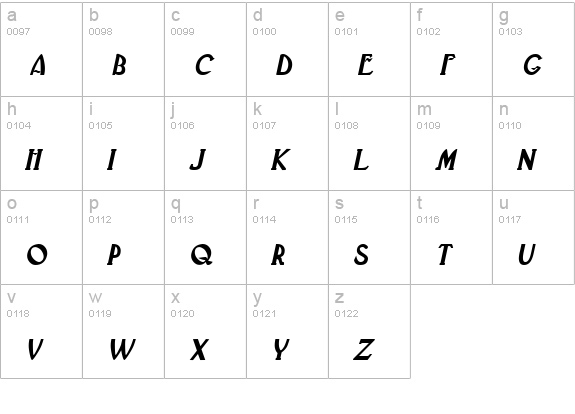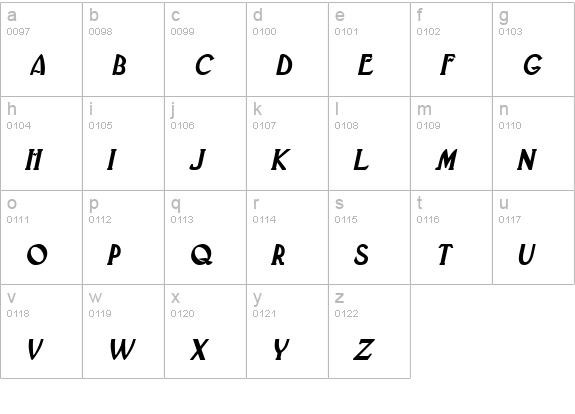
Deco Bold Italic is a strong, high-contrast, italic variant in the Deco typeface family \xE2\x80\x94 well suited to headlines, attention-grabbing titles, and strong calls-to-action.
Introducing Deco Bold Italic font, a striking and stylish typeface that exudes a sense of modern sophistication. Its bold and italic design creates a dynamic and eye-catching look that is perfect for adding a touch of elegance to your projects. With its sleek lines and Art Deco-inspired aesthetic, Deco Bold Italic font is sure to make a statement in any design application. Whether you're designing a poster, logo, website, or any other project, this font will elevate your work to the next level. And the best part? Deco Bold Italic font is available for free download at FontsMarket.com. So you can add this stunning typeface to your collection without any cost. Don't miss out on the opportunity to enhance your designs with this beautiful and versatile font. Download Deco Bold Italic today and let your creativity shine!